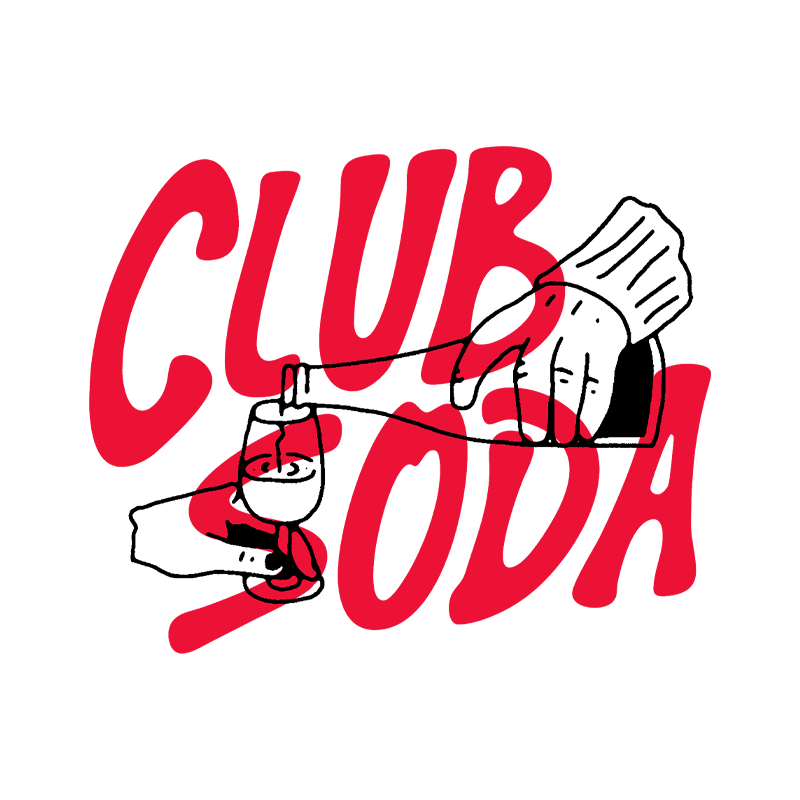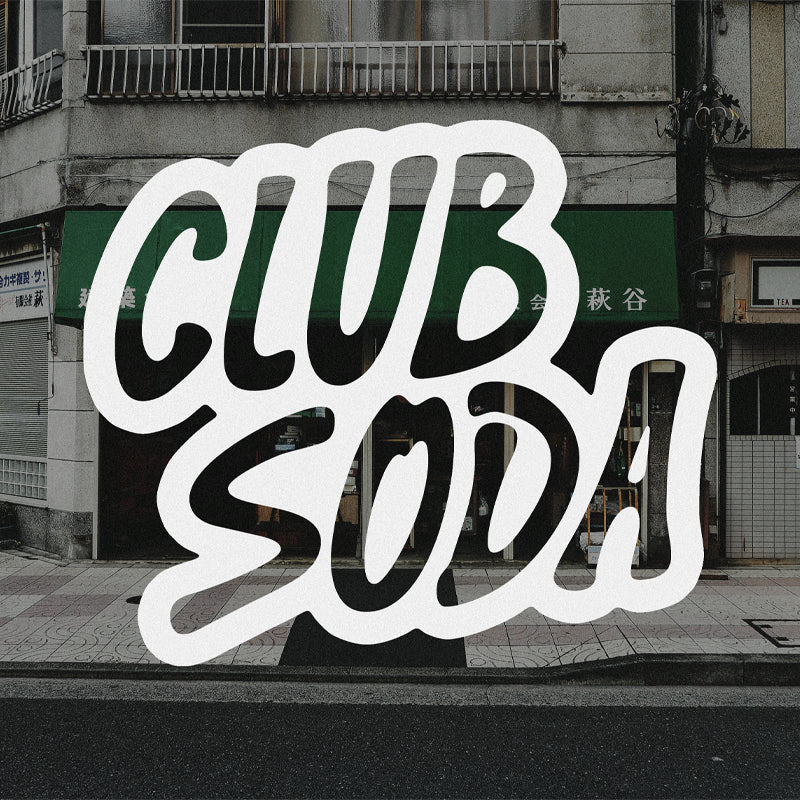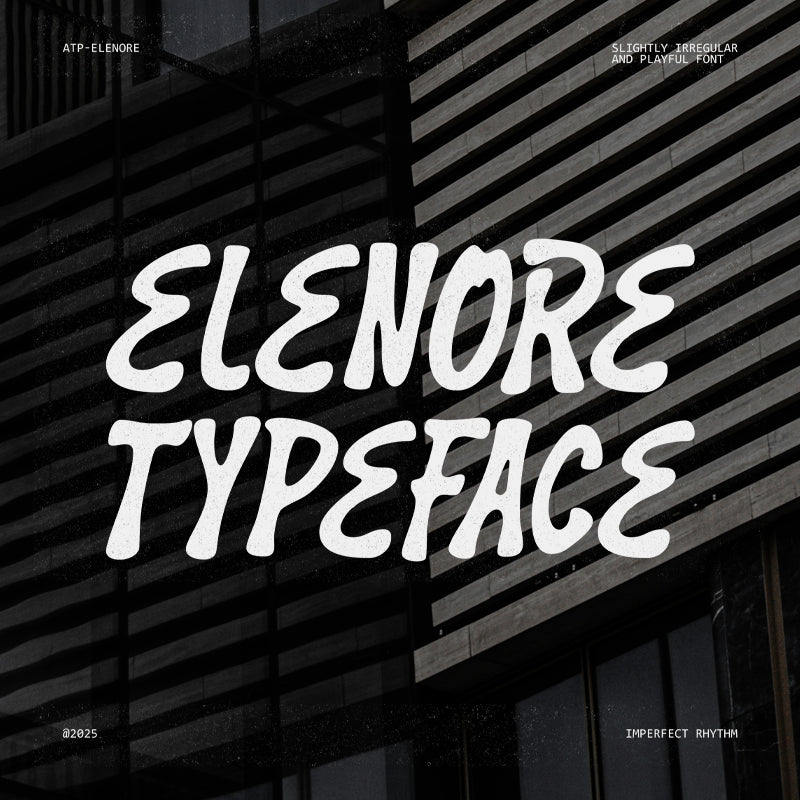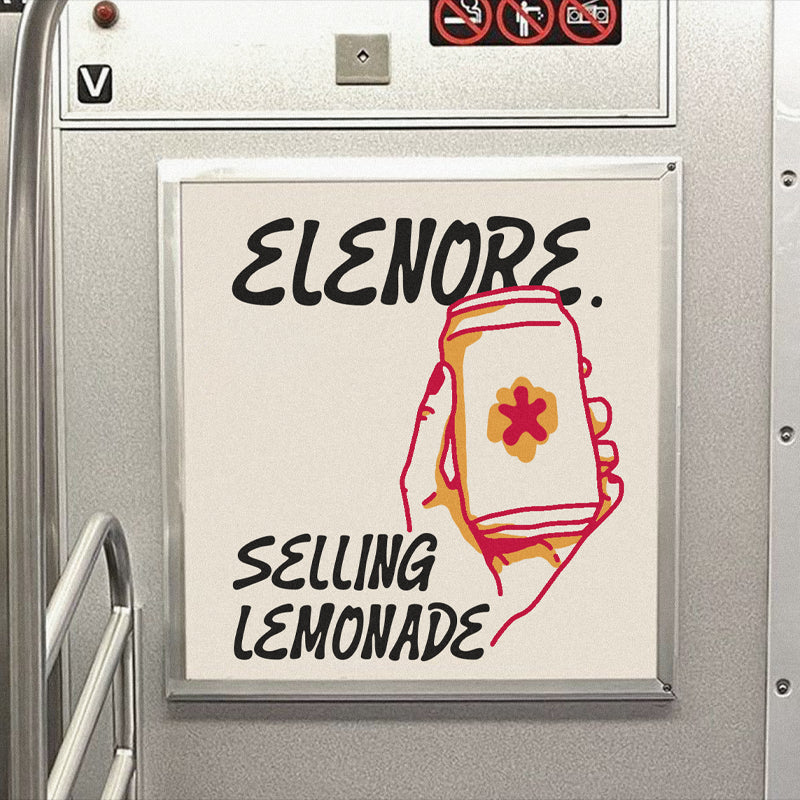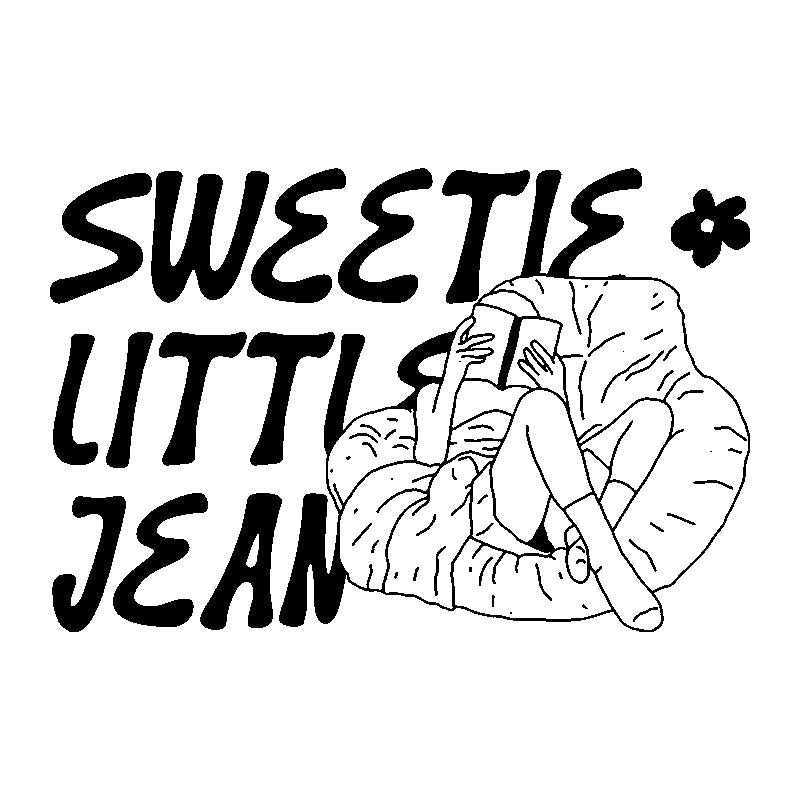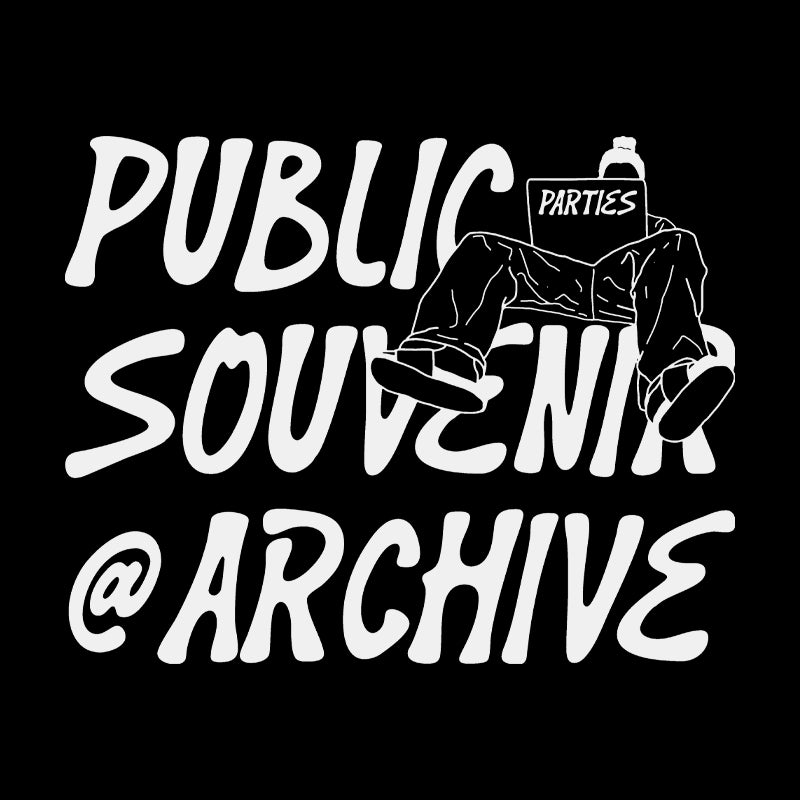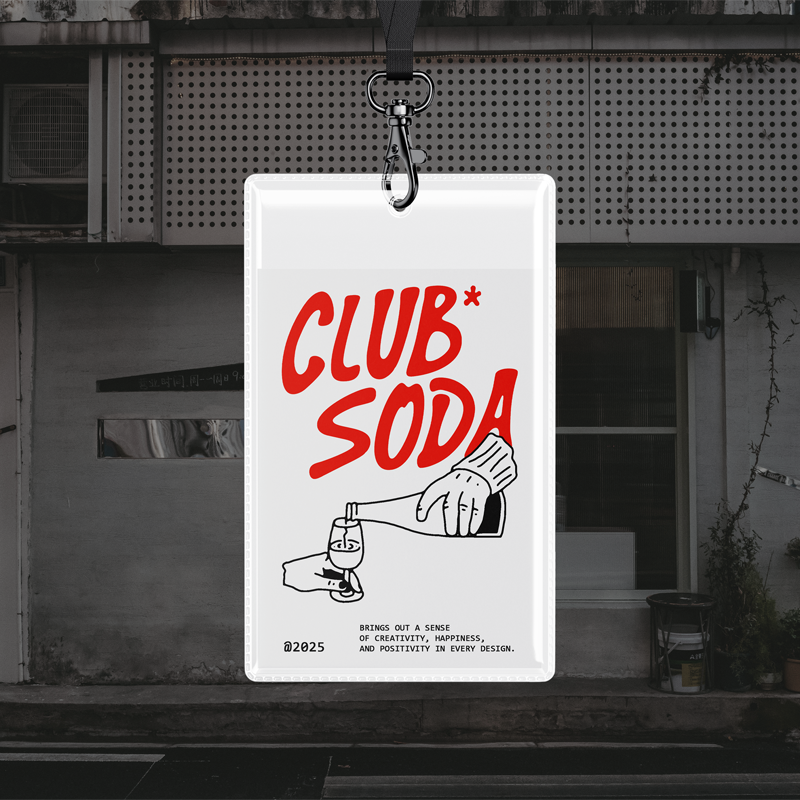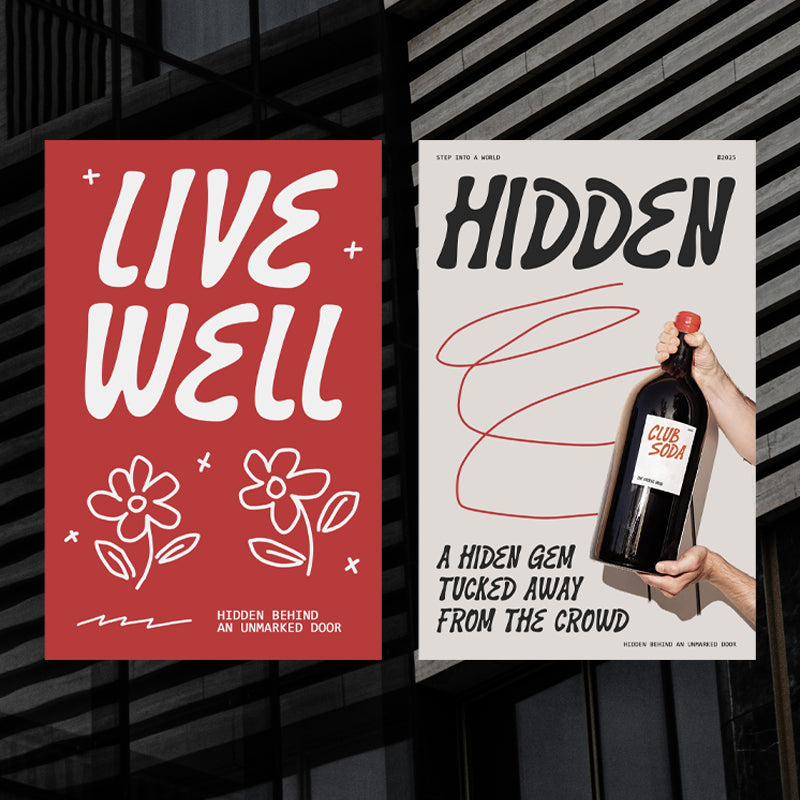
Elenore - Groovy Western Font
Elenore - Groovy Western Font is a hand-drawn typeface featuring slightly irregular strokes that provide an authentic and playful appearance. With tall proportions and narrow spacing, it offers a unique blend of character and warmth, making it suitable for various typographic applications.